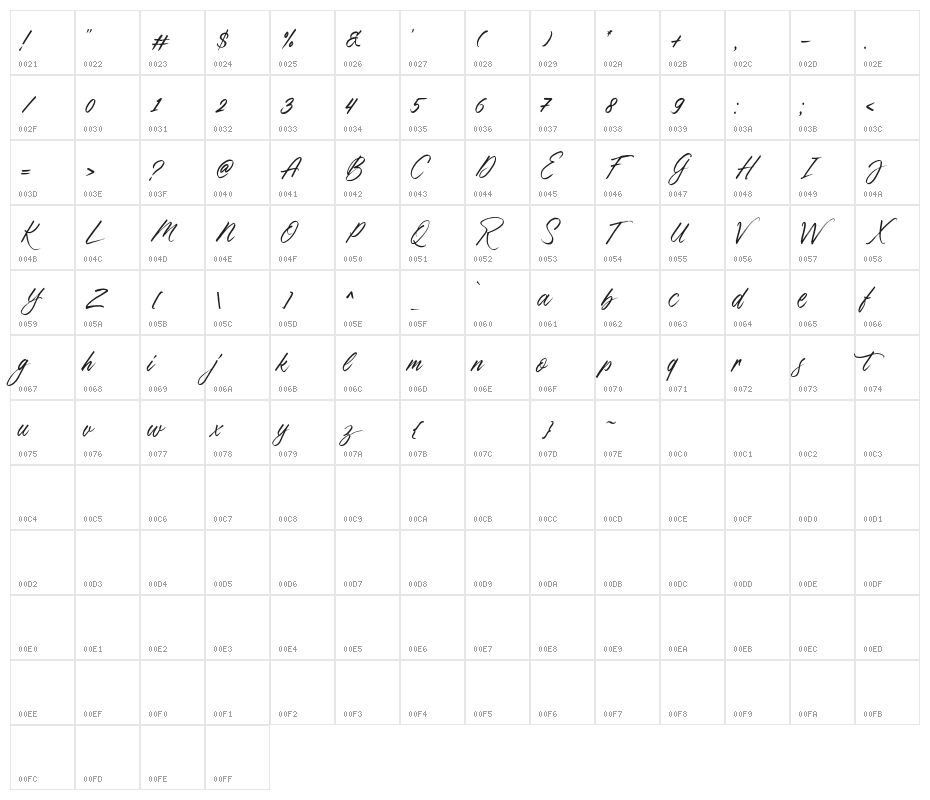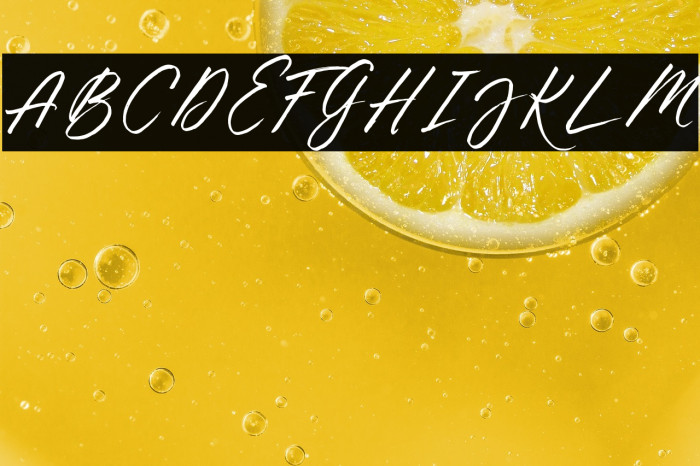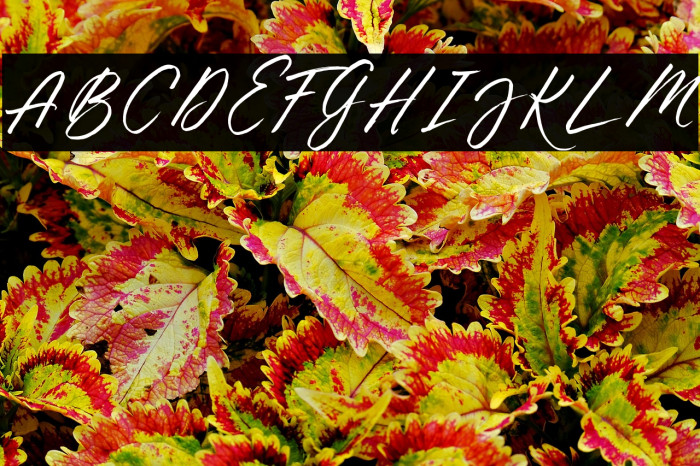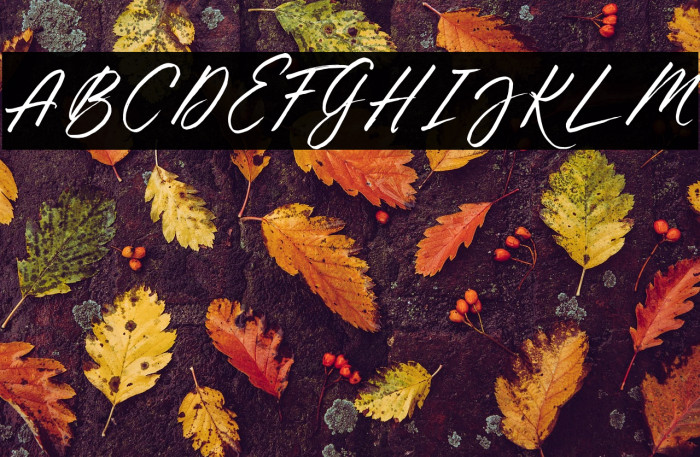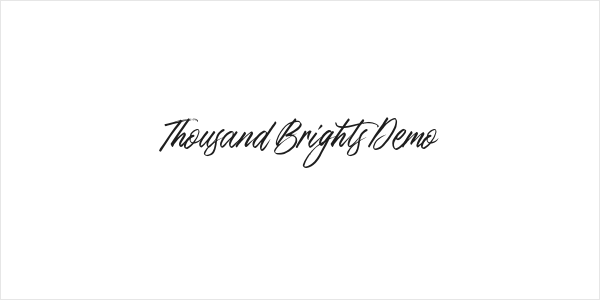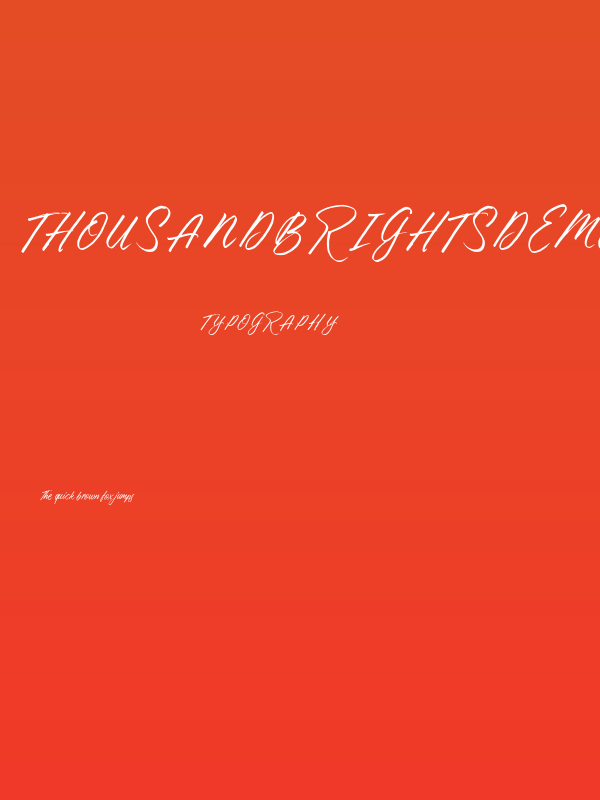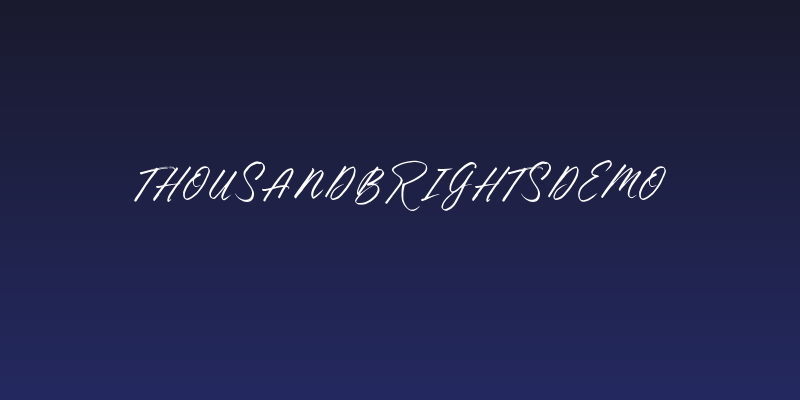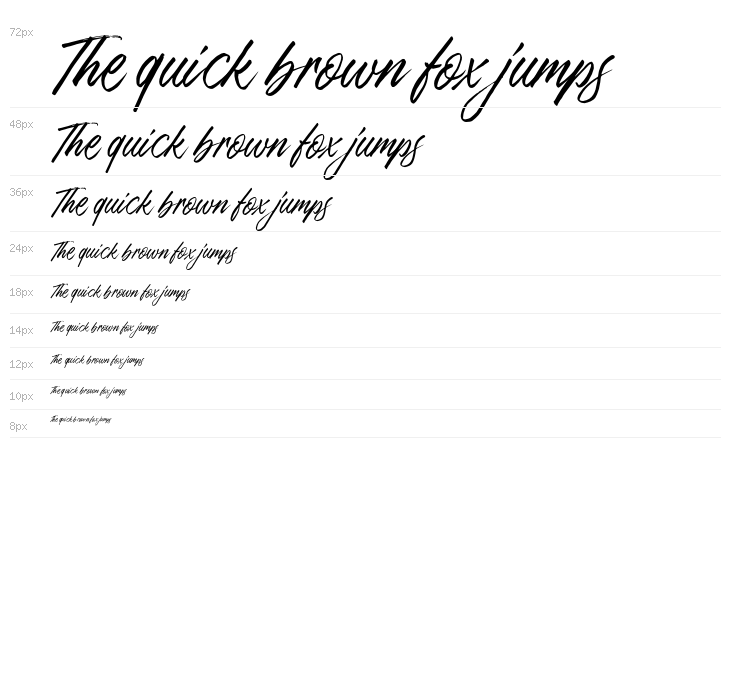
ThousandBrightsDemo Font
ThousandBrightsDemo Description
A flowing, elegant script font with a handwritten appearance, featuring smooth curves and varying stroke thicknesses.
| Use Case | Logos, Invitations, Decorative text. |
| Proposed Projects | Wedding invitations, greeting cards, elegant branding. |